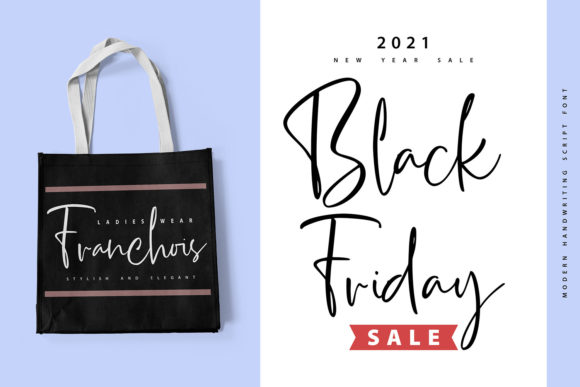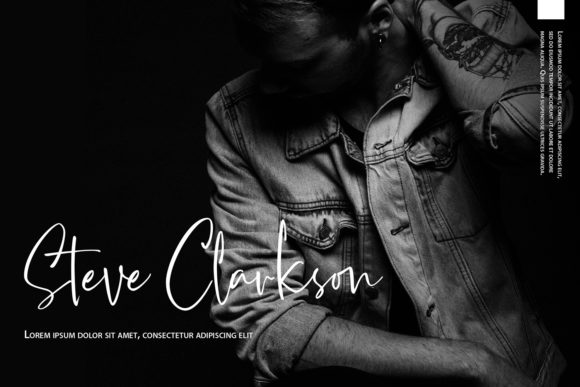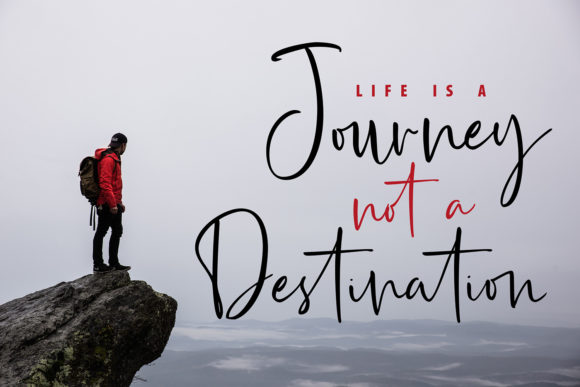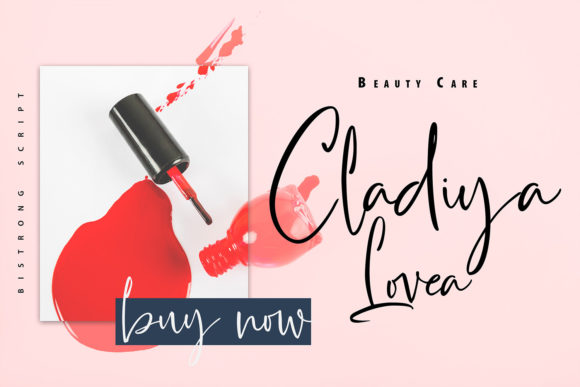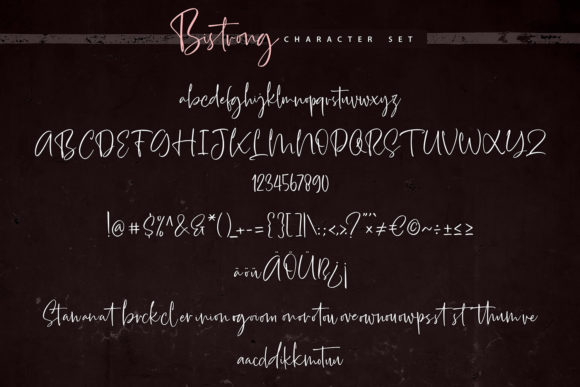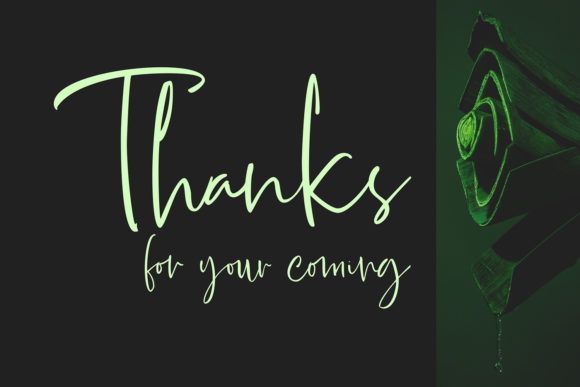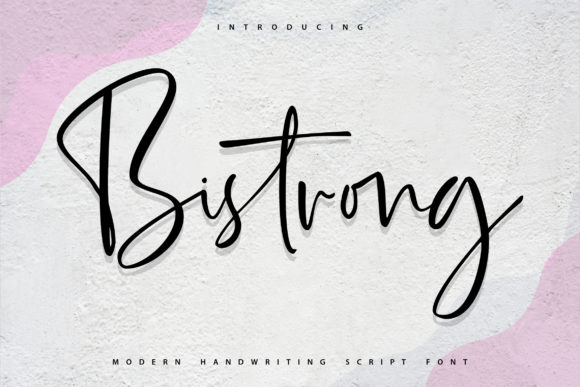
Bistrong Font: Elevate Your Designs with this Lovely Brushed Script Font
Are you tired of using the same old fonts in your designs? Look no further! Introducing Bistrong, a beautiful brushed script font that’s sure to take your creations to the next level. With its incredibly versatile style and PUA encoding, Bistrong is the perfect addition to any designer’s toolkit.
What is Bistrong Font?
Bistrong is a lovely brushed script font that’s designed to add a touch of elegance and sophistication to your designs. Its unique, hand-brushed style gives it a distinctive look that’s sure to stand out from the crowd. Whether you’re working on a logo, brochure, or social media graphic, Bistrong is the perfect choice.
Key Features of Bistrong Font
- PUA encoded: Access all glyphs and swashes with ease
- Brushed script style: Unique, hand-brushed look that’s perfect for adding a touch of elegance to your designs
- Versatile: Suitable for a wide range of design projects, from logos and brochures to social media graphics and more
- Easily accessible glyphs: Use the font’s built-in glyphs and swashes to add extra flair to your designs
Why Choose Bistrong Font?
So, why should you choose Bistrong for your next design project? Here are just a few reasons:
- Stand out from the crowd: Bistrong’s unique, hand-brushed style is sure to grab attention and set your designs apart
- Easy to use: With PUA encoding, you can access all of the font’s glyphs and swashes with ease
- Versatile: Bistrong is suitable for a wide range of design projects, from elegant logos to eye-catching social media graphics
- High-quality: Bistrong is a high-quality font that’s designed to deliver exceptional results
How to Use Bistrong Font in Your Designs
Using Bistrong in your designs is easy! Here are a few tips to get you started:
- Pair it with other fonts: Combine Bistrong with other fonts to create a unique and eye-catching look
- Experiment with glyphs and swashes: Use the font’s built-in glyphs and swashes to add extra flair to your designs
- Use it for headlines and titles: Bistrong is perfect for headlines and titles, where its bold, brushed style can really make an impact